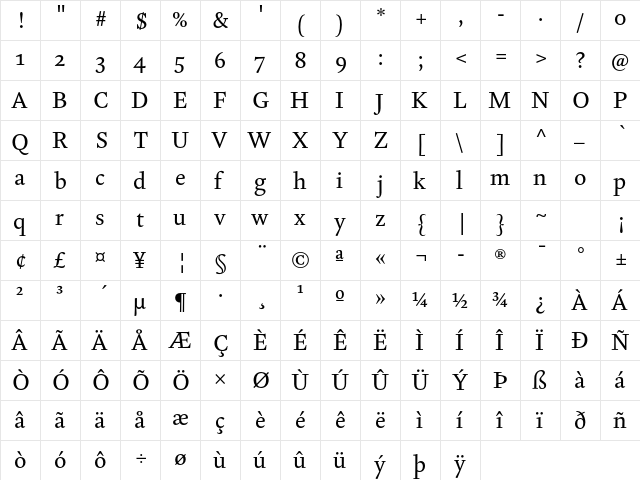
Kingfisher Regular
| Designer | Jeremy Tankard |
Design Context for Kingfisher Typeface
Kingfisher is a composed and adaptable typeface that performs quietly and consistently across a wide range of design contexts.